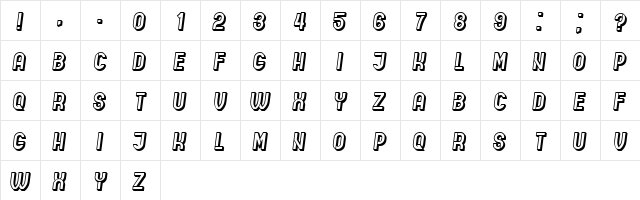
Indirect Implication 3D Italic
Design Context for Indirect Implication 3D Typeface
Indirect Implication 3D is a composed and adaptable typeface that performs quietly and consistently across a wide range of design contexts. Its italic angle brings a sense of urgency and motion to the letterforms.
Pro Tip: Try Indirect Implication 3D for annotation and caption copy alongside an upright companion — the contrast in angle creates a dynamic but ordered typographic system.